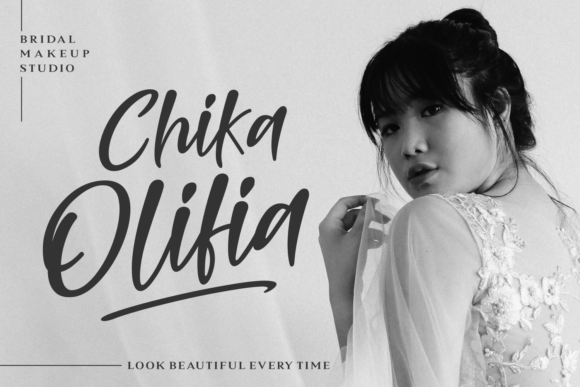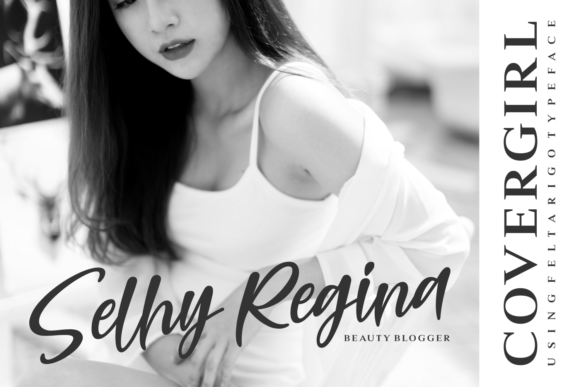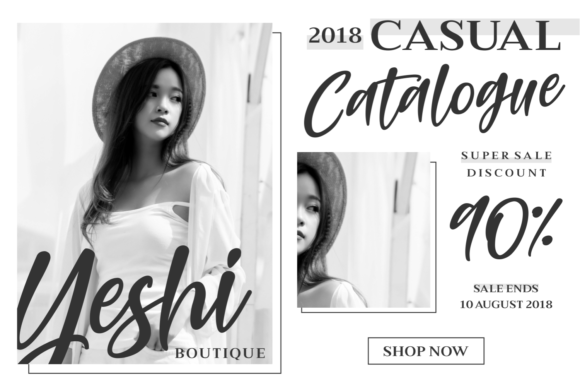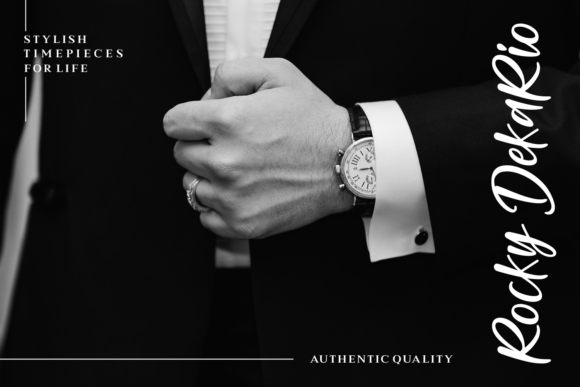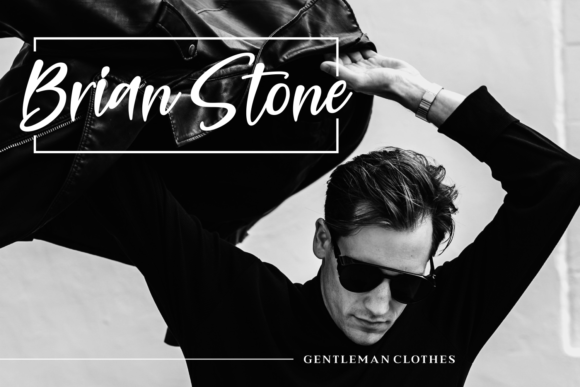
Introduction to Feltarigo Font
Feltarigo is a dancing brush script.
It is nicely curved and made with love and lots of attention to detail Feltarigo can be used for many type of projects and will give the ultimate personal touch to any design.